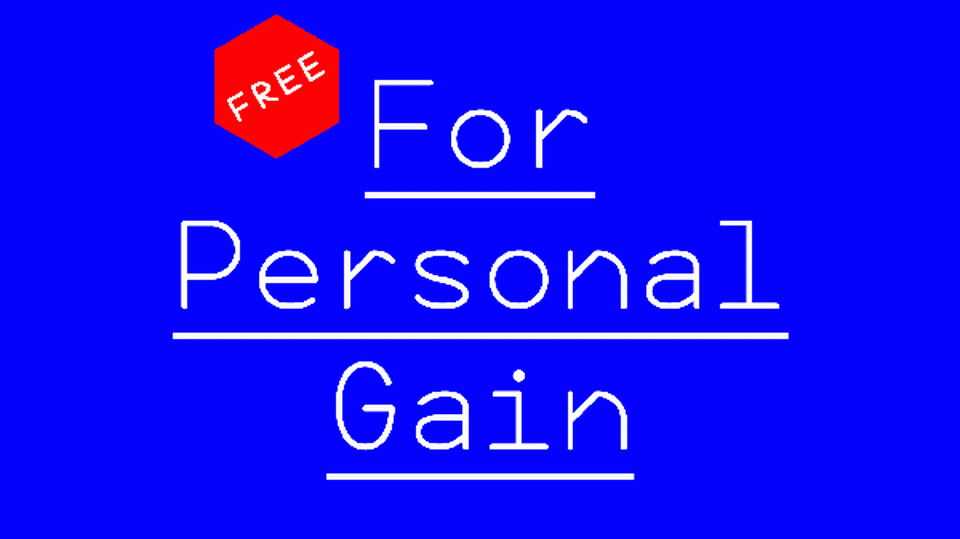
Download For Personal Gain typeface, an experimental monospaced, monowidth font family with unexplaned angles in two styles and 455 glyphs.
Designer: Matthew Lew